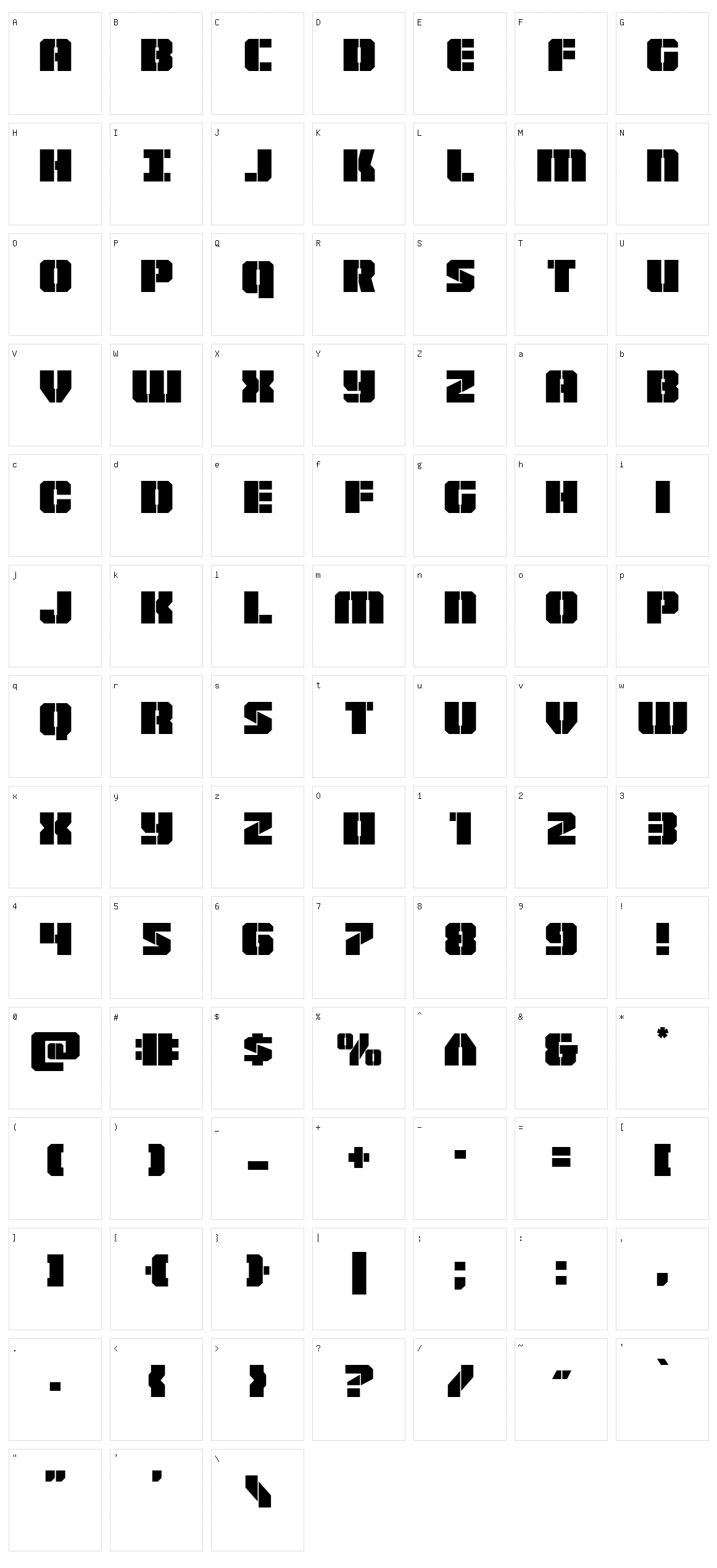
The free font Warpthruster is carefully designed by Iconian Fonts, showcasing a thoughtful balance of creativity and usability and falls under the Stencil font style. When you download the ZIP file, it contains only 953.32 KB of font files, making it lightweight and quick to download. Please review the license details below to understand permitted usage and distribution rights. If license information is not available, we recommend using this font for personal projects only or contacting the author directly for commercial usage permissions.
This font comes with the following 25 versions: Regular, Italic, Condensed, Condensed Italic, Expanded, Expanded Italic, 3D, 3D Italic, Gradient, Gradient Italic, Laser, Laser Italic, 3D Laser, 3D Laser Italic, Academy, Academy Italic, Engraved, Engraved Italic, Chrome, Chrome Italic, Platinum, Platinum Italic, Half-Tone, Half-Tone Italic and Leftalic.